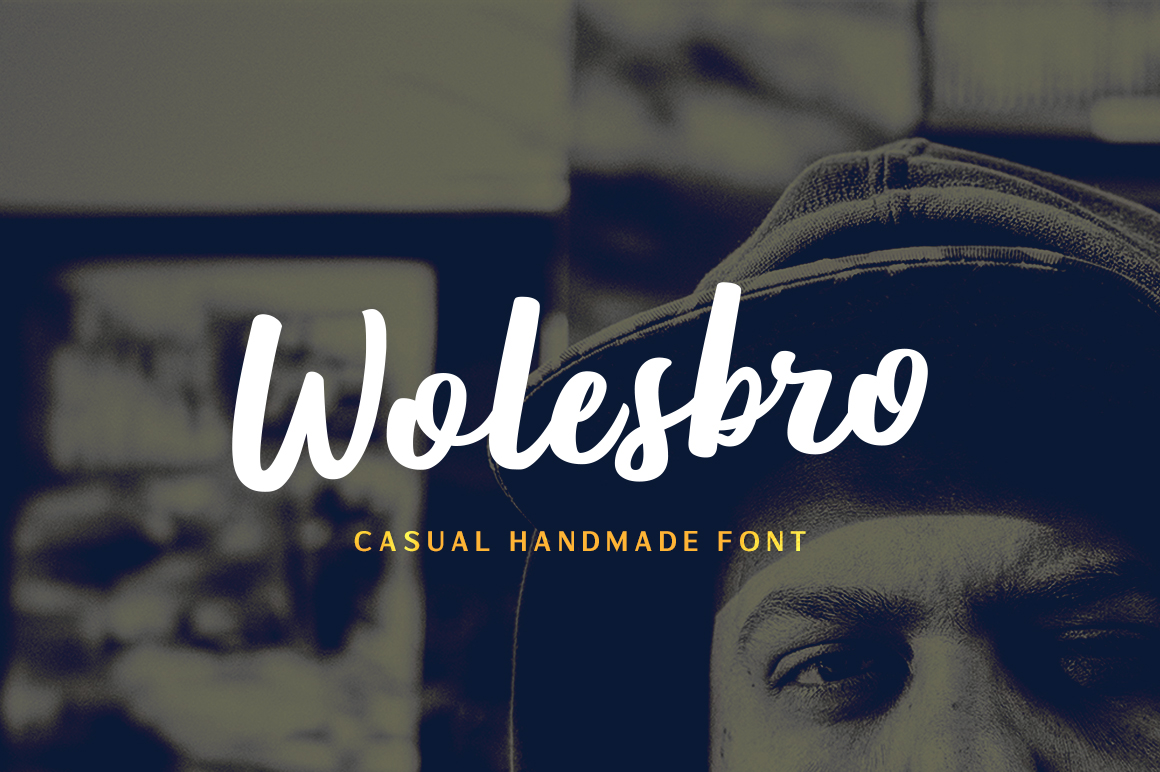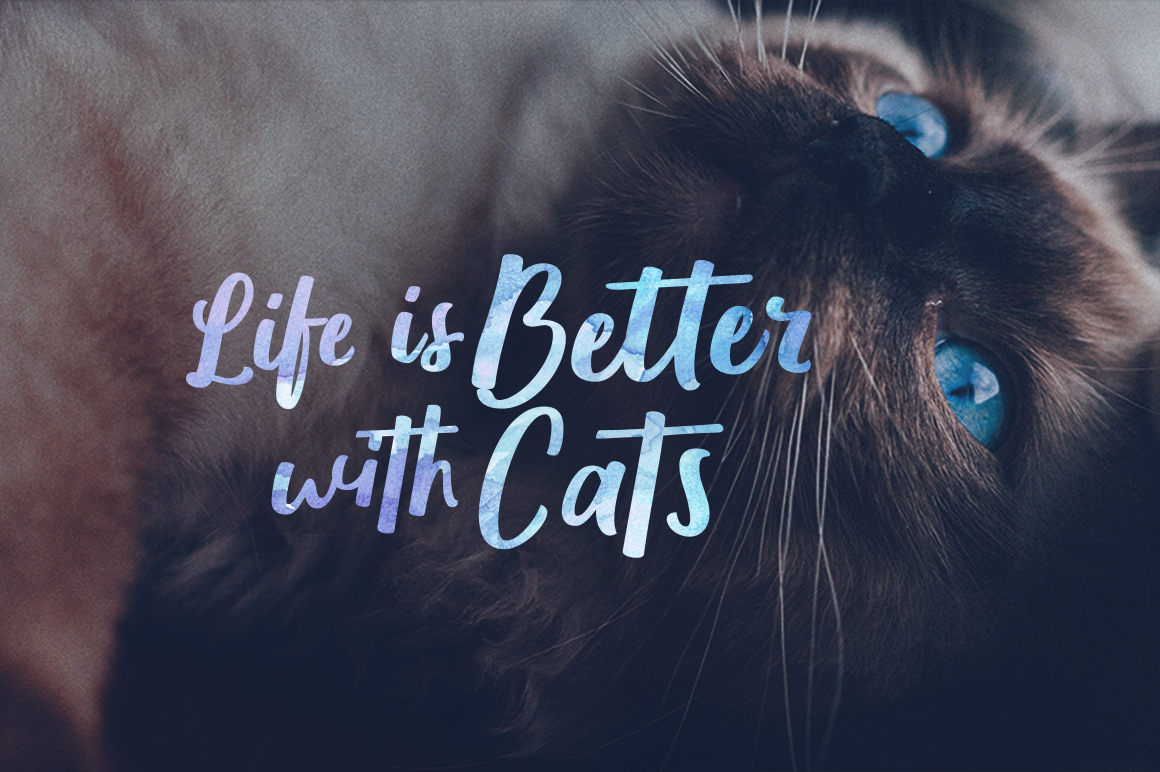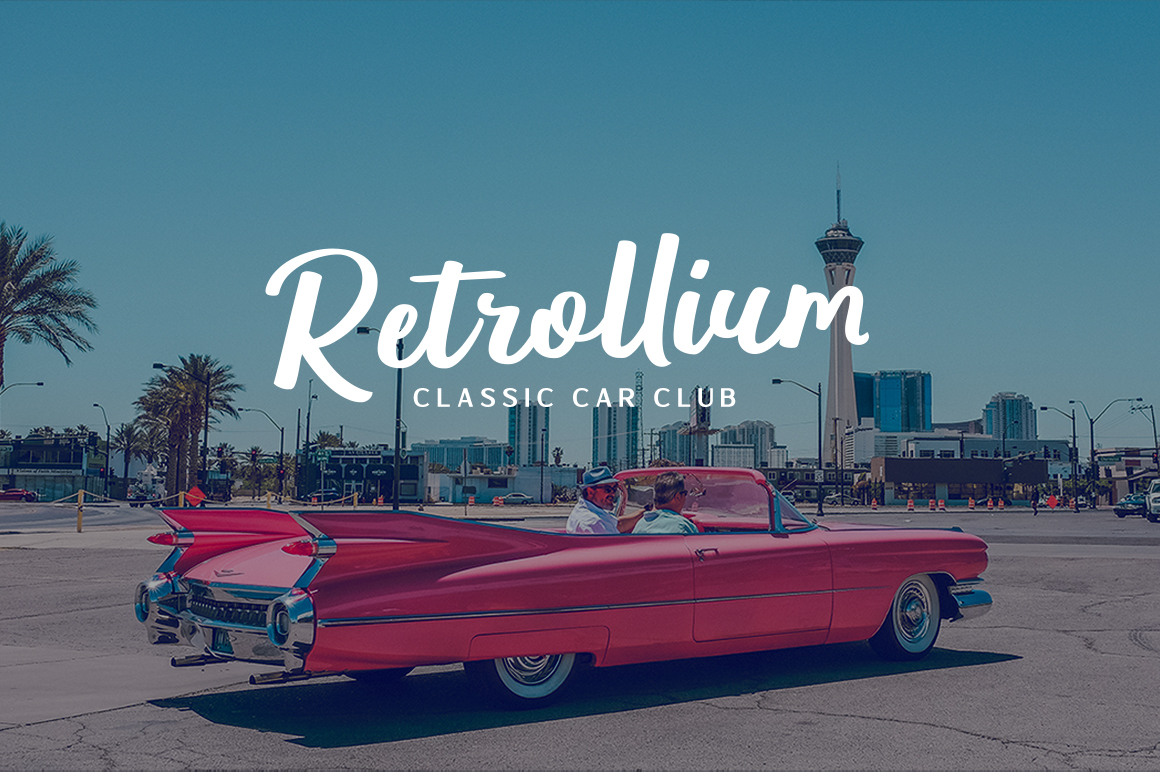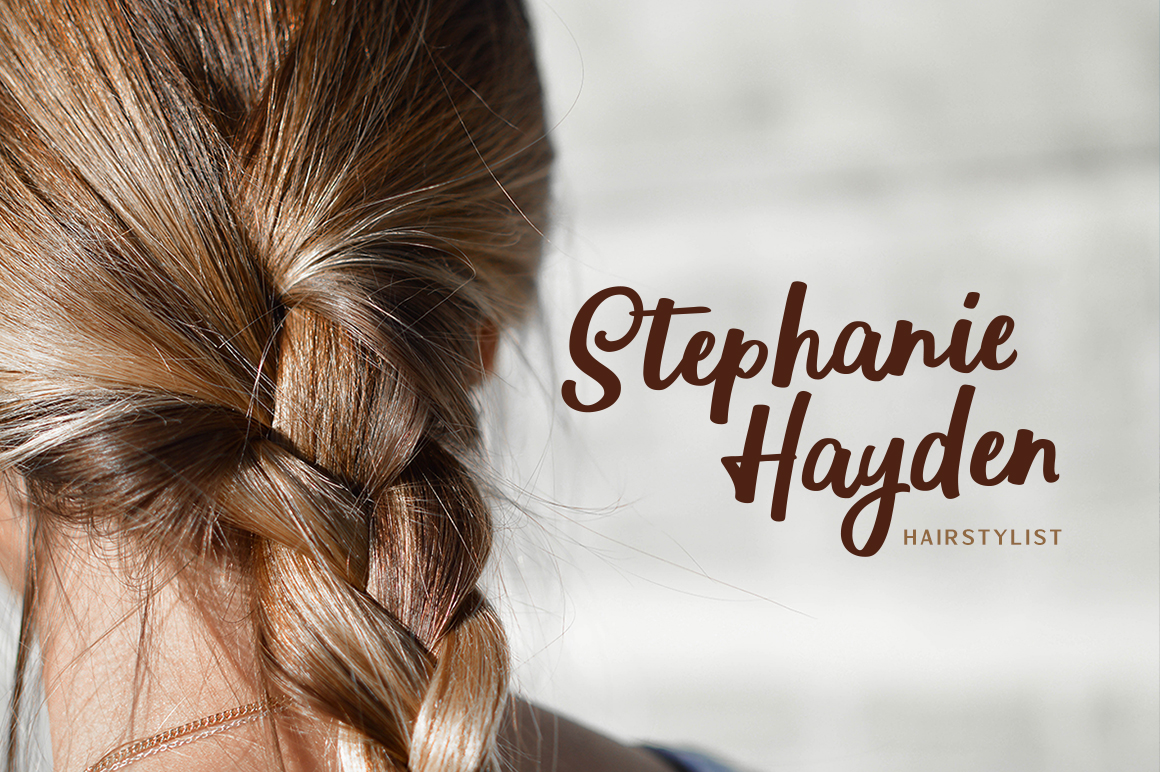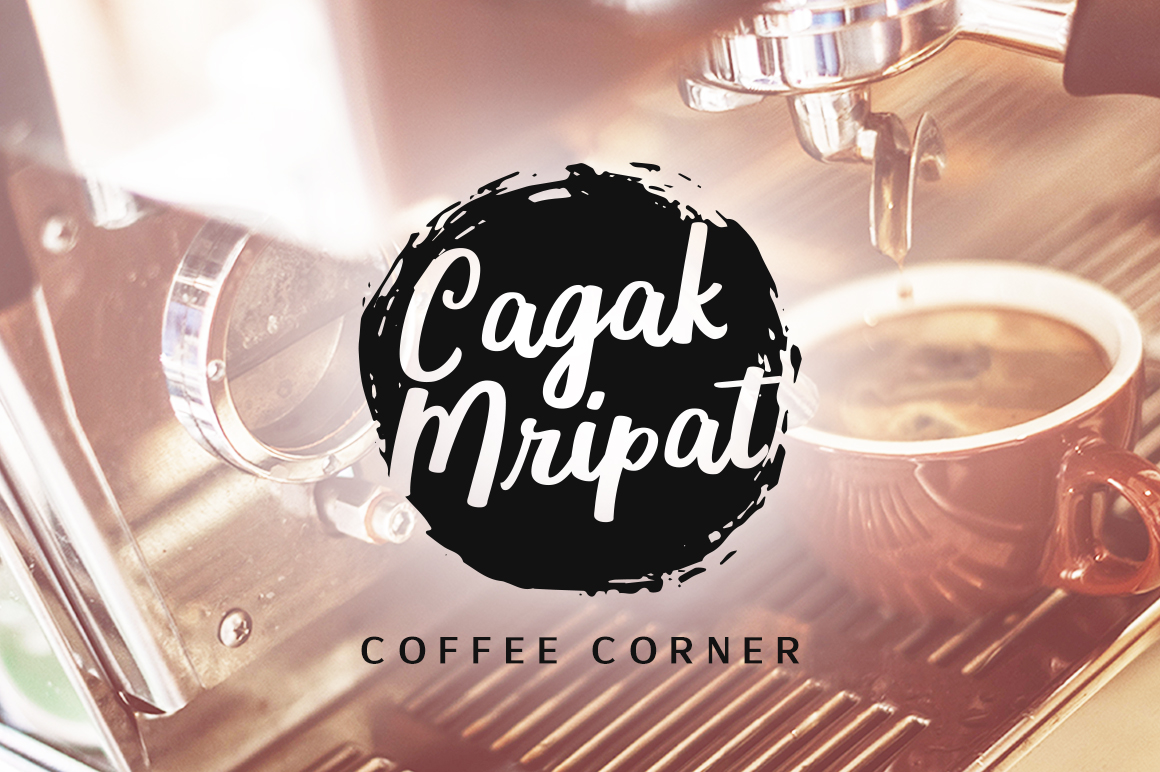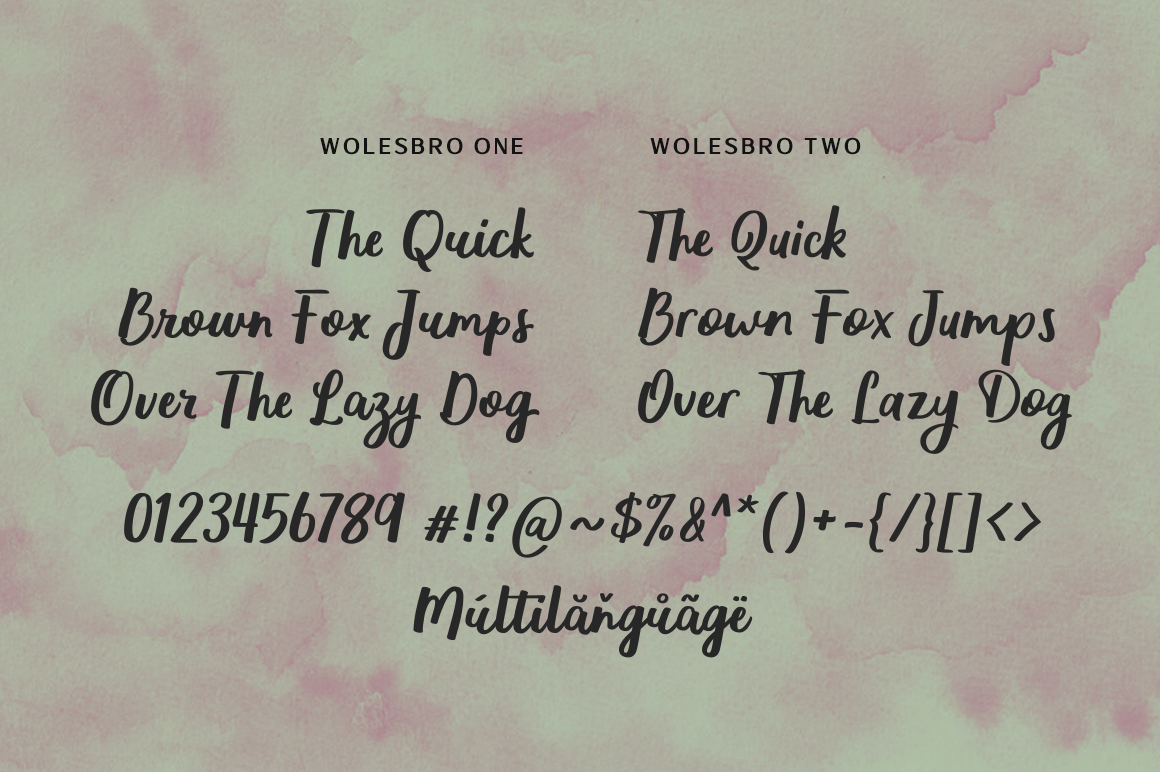
Wolesbro Font
About Wolesbro Font
Wolesbro is a gorgeous brush font that is perfect for designs that need both style and readability. This beautiful script font is casual and unfussy, giving your designs an appealing blasé vibe.